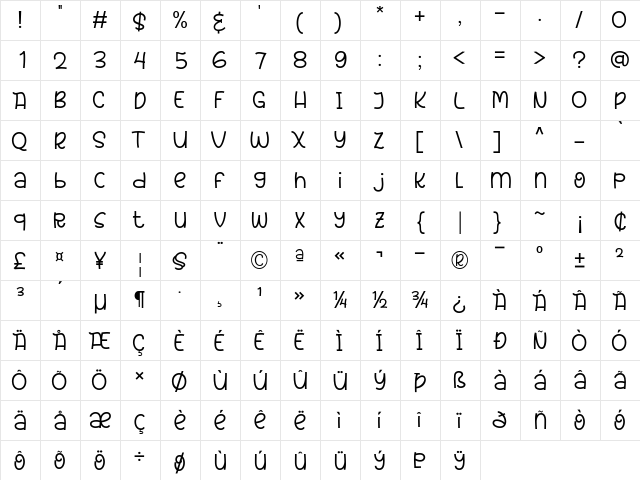
Ramen Neko Regular
| Foundry | 7NTypes |
| Designer | Dreamink; Dani; Situjuh Nazara |
Design Context for Ramen Neko Typeface
Ramen Neko is a composed and adaptable typeface that performs quietly and consistently across a wide range of design contexts.